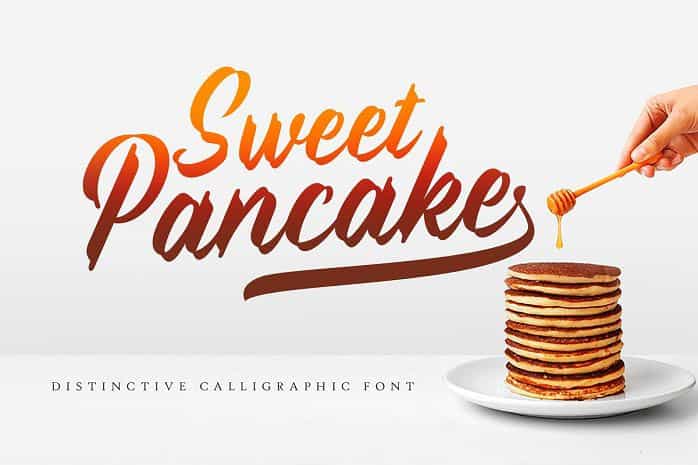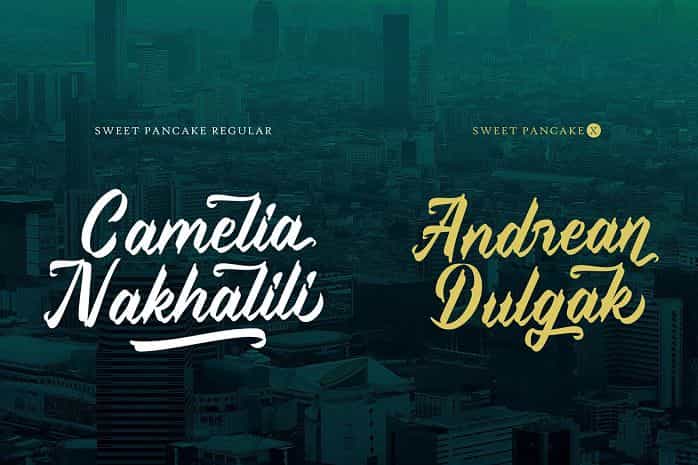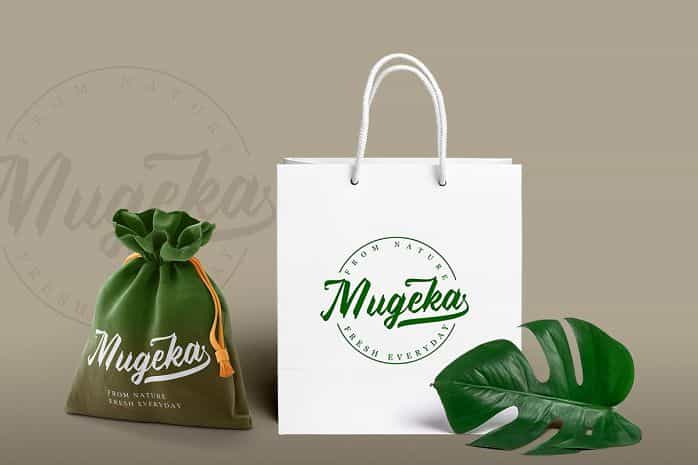
Presenting Sweet Pancake Font. The Sweet Pancake Script Font has different calligraphy styles. The general shape has been modified to give it a more individual and unique look. Sweet Pancake is a good option for logotypes, invitations, posters and so on. In OTF and TTF formats, it is also compatible with multi-language and PUA encoding.